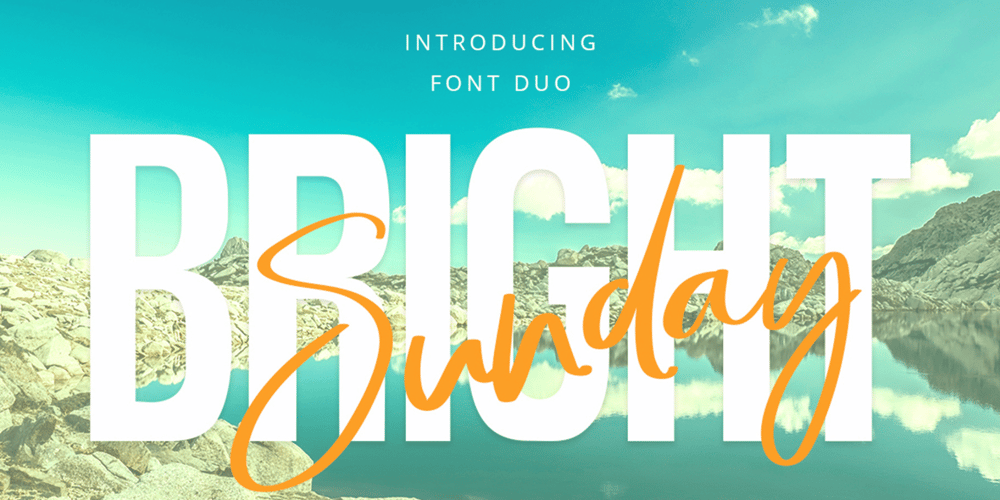
Bright Sunday Font Family was designed by Ana Natalia and published by Lythcreative. Bright Sunday contains 2 styles and family package options. Bright Sunday is a cool and charming font duo. When combined, these two fonts will add a unique spark to any design project!Bright Sunday is perfect for branding projects, logos, wedding designs, social media posts, advertisements, product packaging, product designs, labels, photography, watermarks, invitations, stationery, and any projects.What’s Included: Web Fonts Tons of glyphs Ligature Works on PC & Mac Simple installations Accessible in Adobe Illustrator, Photoshop, Adobe InDesign, and even Microsoft Word.